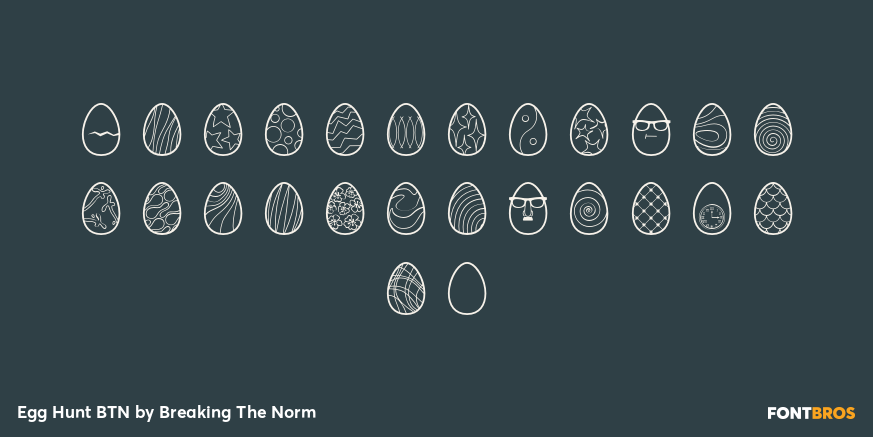
Egg Hunt BTN
Font Family by Breaking The Norm
Egg Hunt BTN is a playful holiday dingbat font filled with egg-themed imagery, from decorated Easter eggs to cracked and fried egg illustrations. Designed for cheerful seasonal creativity, it is a fun choice for Easter party invitations, holiday crafts, greeting cards, classroom projects, decorations, and festive promotional materials. Its friendly assortment of egg graphics makes it easy to add lighthearted springtime accents and colorful visual elements to all kinds of seasonal designs.